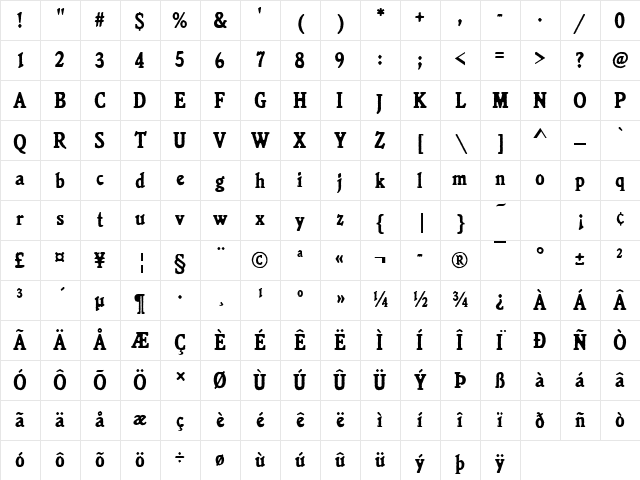
Jenson Becker Bold Cond Regular
Design Context for Jenson Becker Bold Cond
Jenson Becker Bold Cond is a composed and adaptable typeface that performs quietly and consistently across a wide range of design contexts. Its bold stroke weight gives it real presence on the page. Its narrow stance lets it pack a punch even in space-constrained designs.